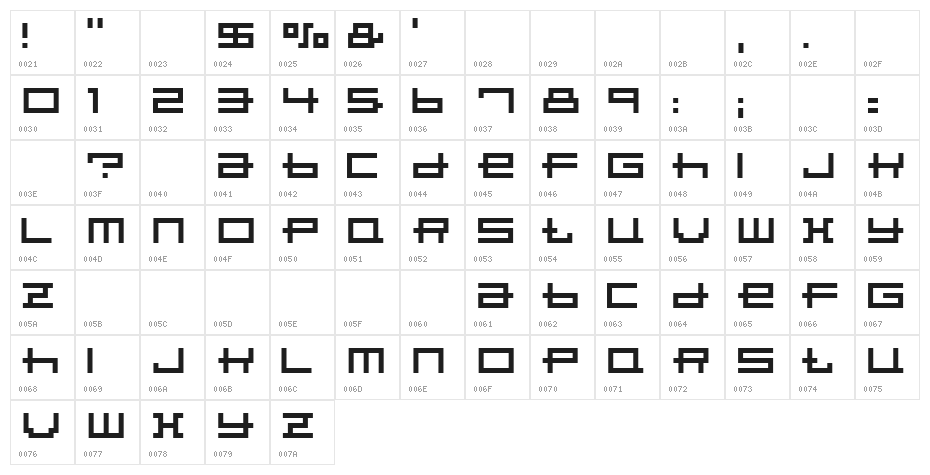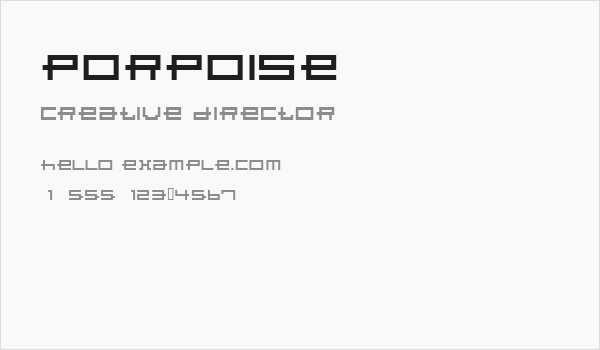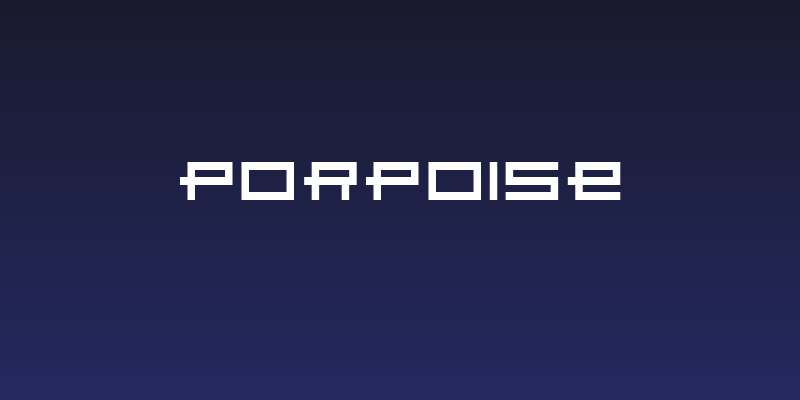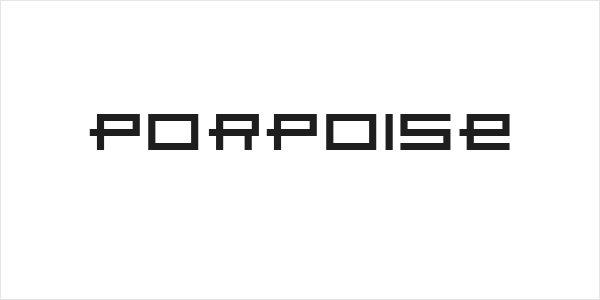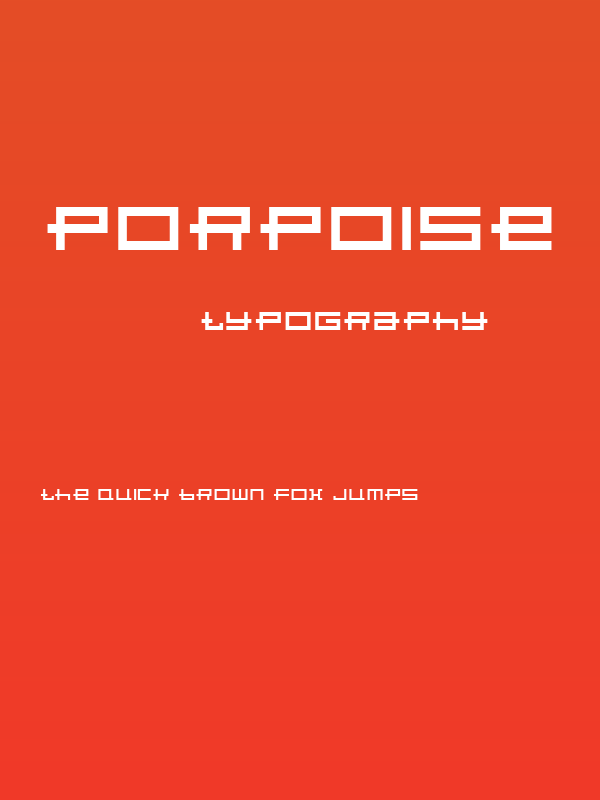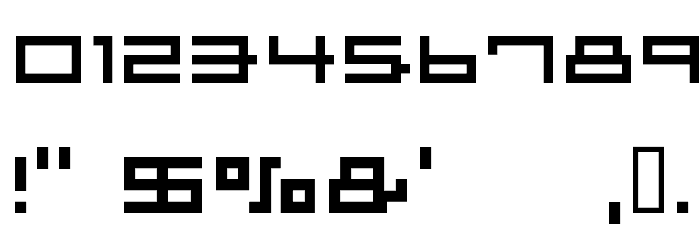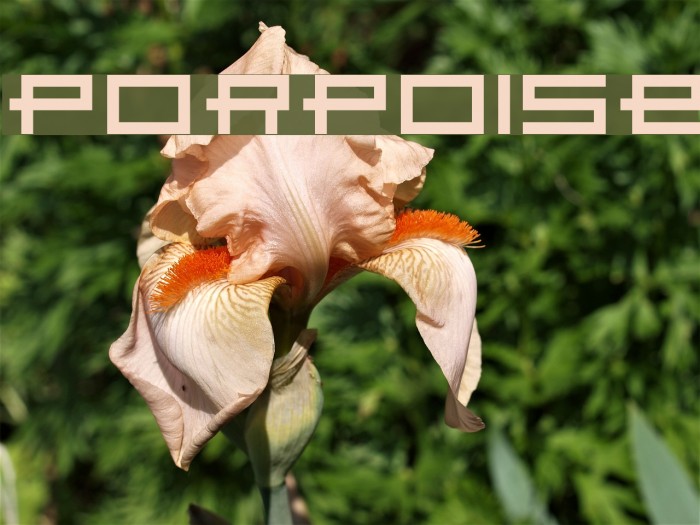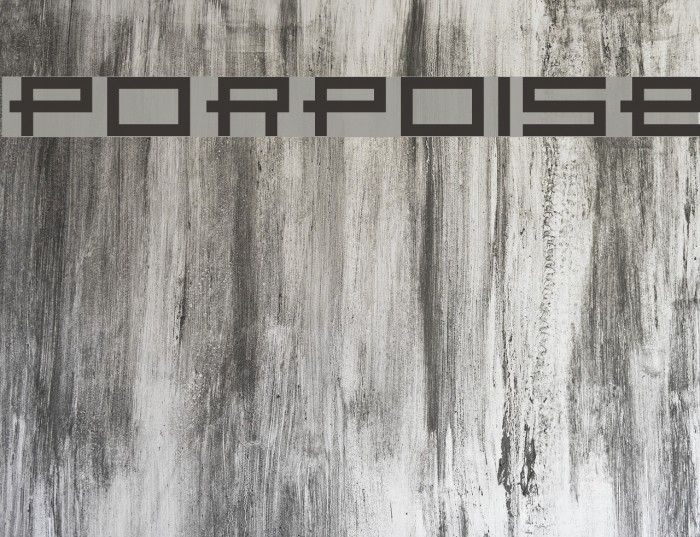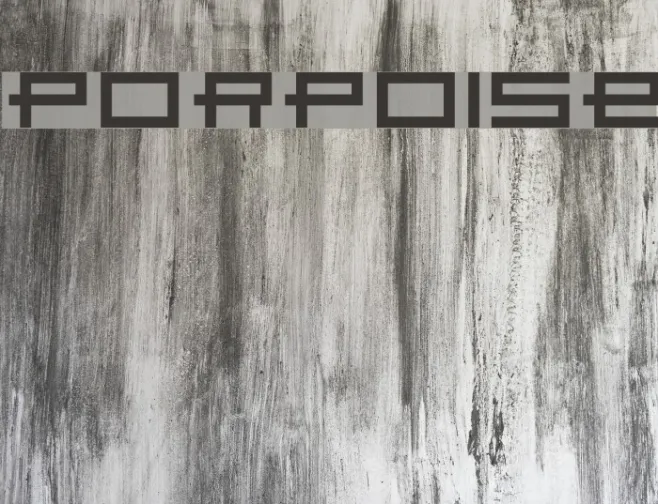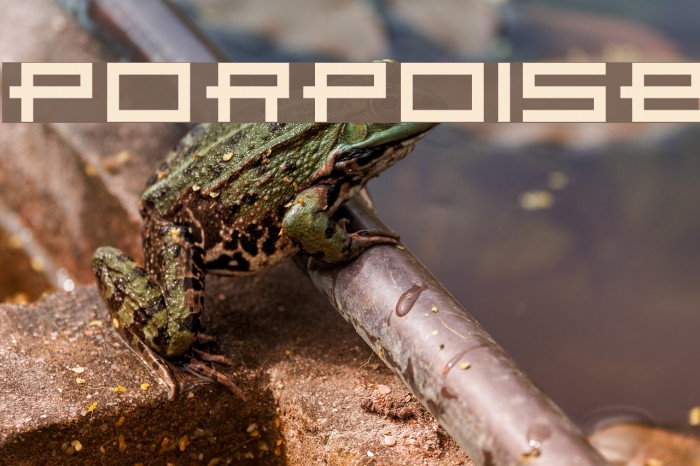
Porpoise Font
Porpoise Description
This font features a bold, geometric design with a pixelated, blocky appearance reminiscent of early digital typography. Each character is constructed with uniform line thickness, creating a cohesive and structured look. The uppercase and lowercase letters maintain a consistent height, contributing to a monospaced feel. The numerals and special characters follow the same design principles, ensuring a uniform aesthetic across all glyphs. The font's style is both modern and retro, making it ideal for projects that require a digital or tech-inspired theme.
| Overall Style | Modern, Retro |
| Use Case | Logos, Headlines, Digital interfaces |
| Proposed Projects | Ideal for video game design, tech branding, digital art projects, and retro-themed graphics. |